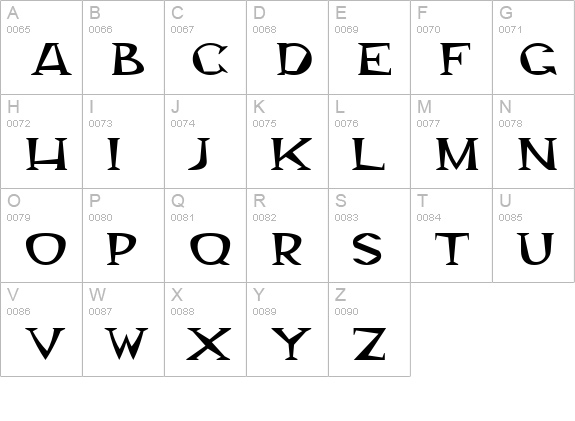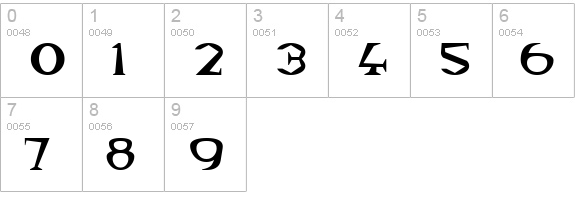
Magyar Serif Font Details
Magyar Serif font is a beautiful and elegant typeface that exudes a sense of sophistication and classical charm. Its timeless design and carefully crafted letterforms make it a versatile choice for a wide range of projects, including editorial design, branding, and signage. Featuring strong serifs and graceful curves, Magyar Serif font captures the essence of traditional typography while adding a touch of modernity. Its balanced proportions and clear legibility make it an excellent choice for both body text and headlines, ensuring that your message is conveyed with clarity and style. One of the most remarkable aspects of Magyar Serif font is that it is freely available to download at FontsMarket.com. This means that you can easily access this exquisite typeface without any cost, allowing you to enhance your design projects without breaking the bank. Whether you're a professional designer or a creative enthusiast, Magyar Serif font is a valuable addition to your font library. Its versatility, elegance, and availability make it a font that you can rely on for a wide range of design projects. So why wait? Visit FontsMarket.com today and download Magyar Serif font for free to elevate your designs to new heights.